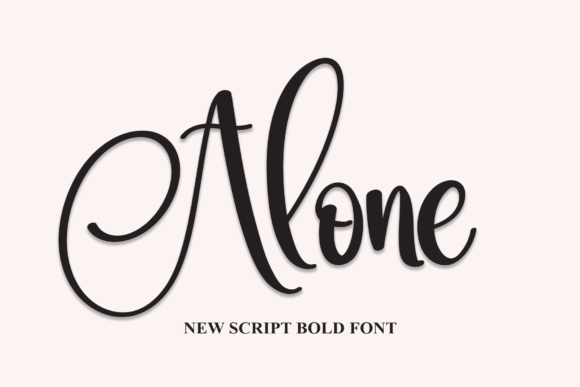
About Alone Font
Alone is a stunning script font that seamlessly combines modernity and uniqueness in its captivating shape. Its writing style exudes a natural elegance, making it a versatile choice for a myriad of typographic designs. With Alone, you can effortlessly create beautiful and impactful visual elements across various platforms, including branding, web design, editorial projects, prints, crafts, and quotes.
This font’s contemporary and one-of-a-kind design offers a distinctive flair to your typographic creations. Its versatility shines through, allowing for instant and seamless integration into a wide range of design applications. Whether you’re working on a brand identity, a web interface, an editorial layout, or crafting prints with a personal touch, Alone transforms your ideas into visually stunning realities.
Alone is particularly well-suited for logotypes, infusing them with a touch of sophistication and modernity. Additionally, it adds a romantic charm to wedding invitations and heartfelt cards, making your messages even more memorable. Labels and packaging come to life with the unique character of this script font, elevating the visual appeal of your products.
This font is a perfect choice for personalization, especially in spelling names, as it adds a distinct and stylish touch to any text. The fluidity of Alone makes it adaptable to various design needs, allowing you to explore and experiment with different creative ideas.
Whether you’re a designer looking to make a statement or someone with a passion for crafting visually appealing projects, Alone is your go-to companion. Watch as it breathes life into your most creative ideas, transforming them into eye-catching and expressive designs. Let Alone be the catalyst that elevates your typographic endeavors, bringing a touch of beauty and uniqueness to every project.